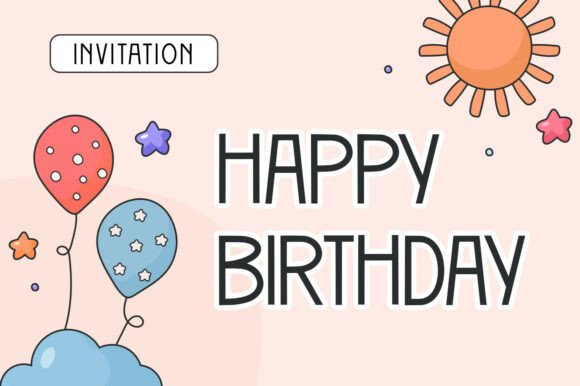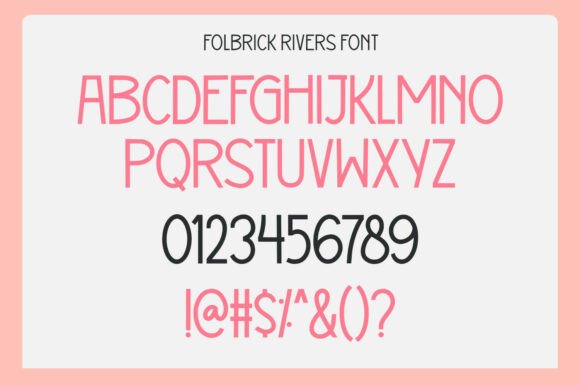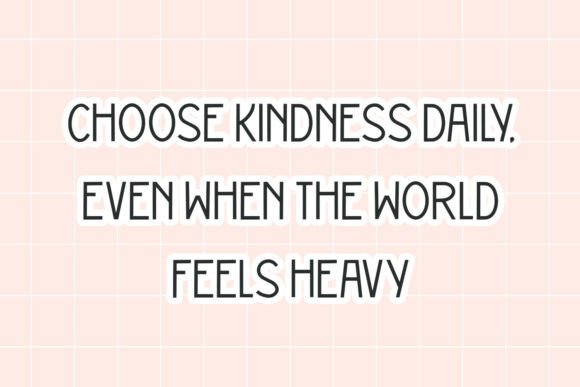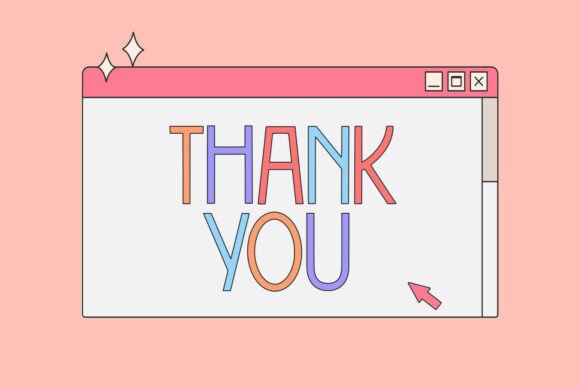
Introduction to Folbrick Rivers Font
Folbrick Rivers is a vibrant, modern display typeface that captures the playful energy of contemporary web aesthetics.
Featuring a tall, slim structure with smooth, rounded terminals, this font radiates a sense of friendly professionalism The Folbrick Rivers font is characterized by its clean outlines and unique geometric balance, making it a perfect choice for digital-first branding and social media graphics.
Key Features of Folbrick Rivers Font